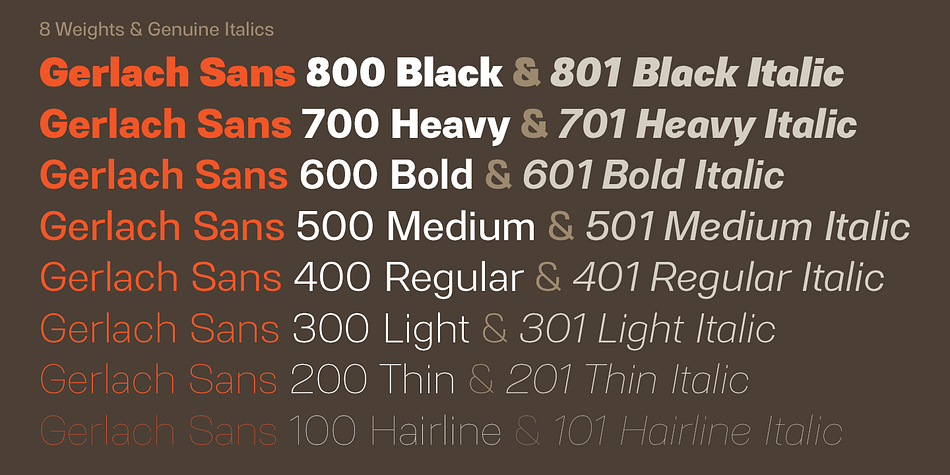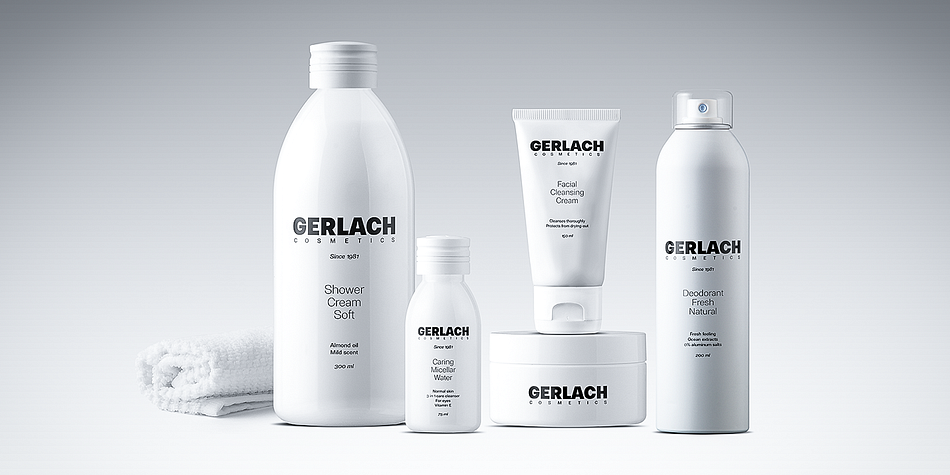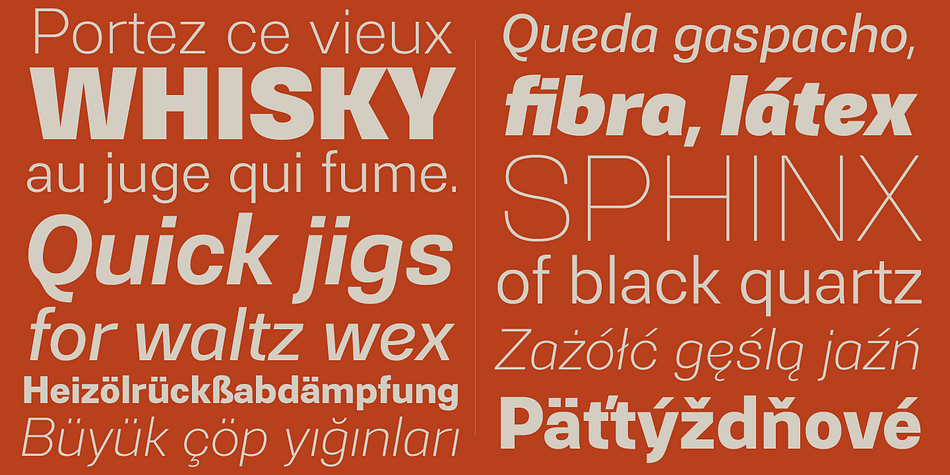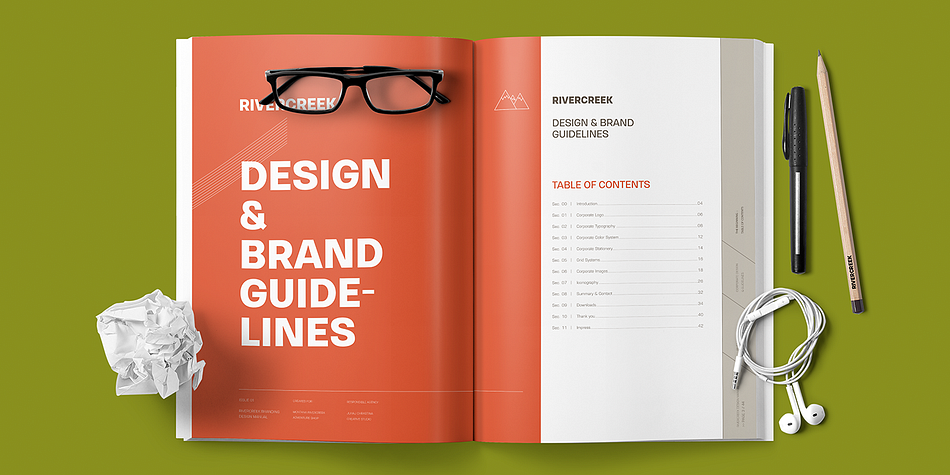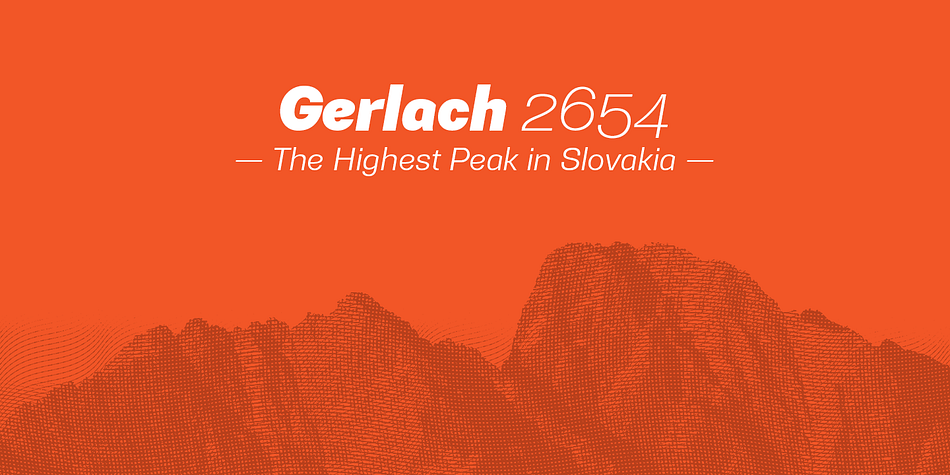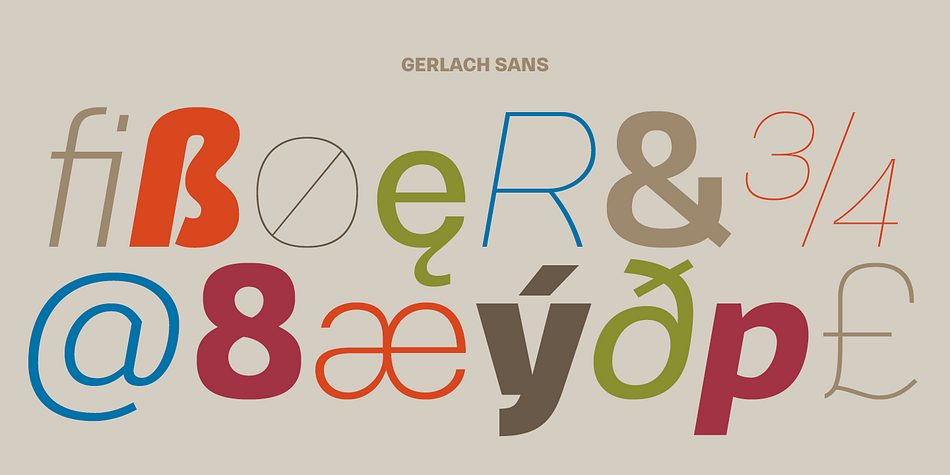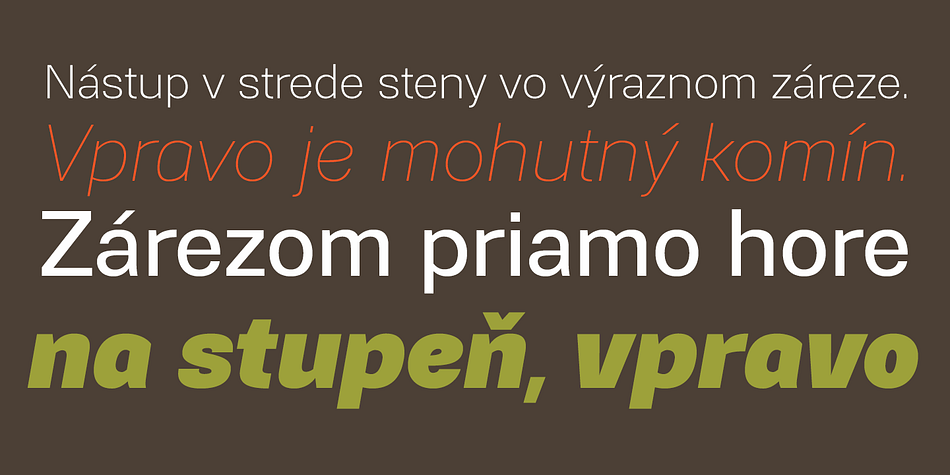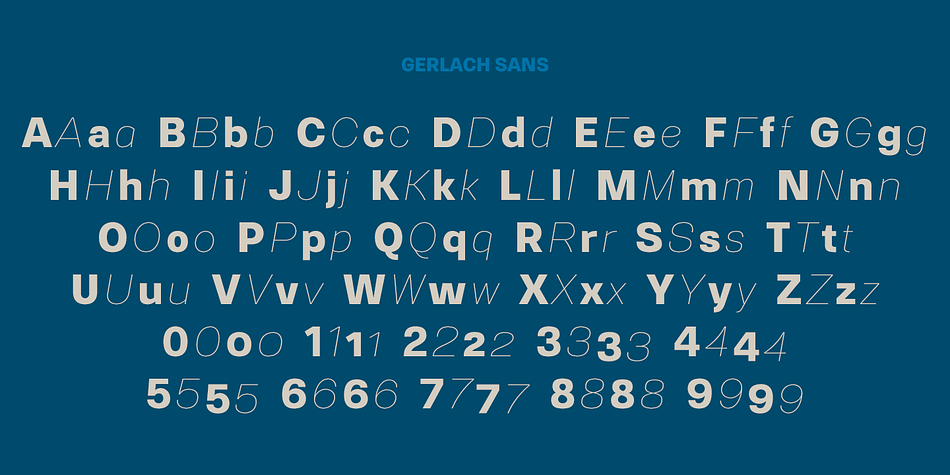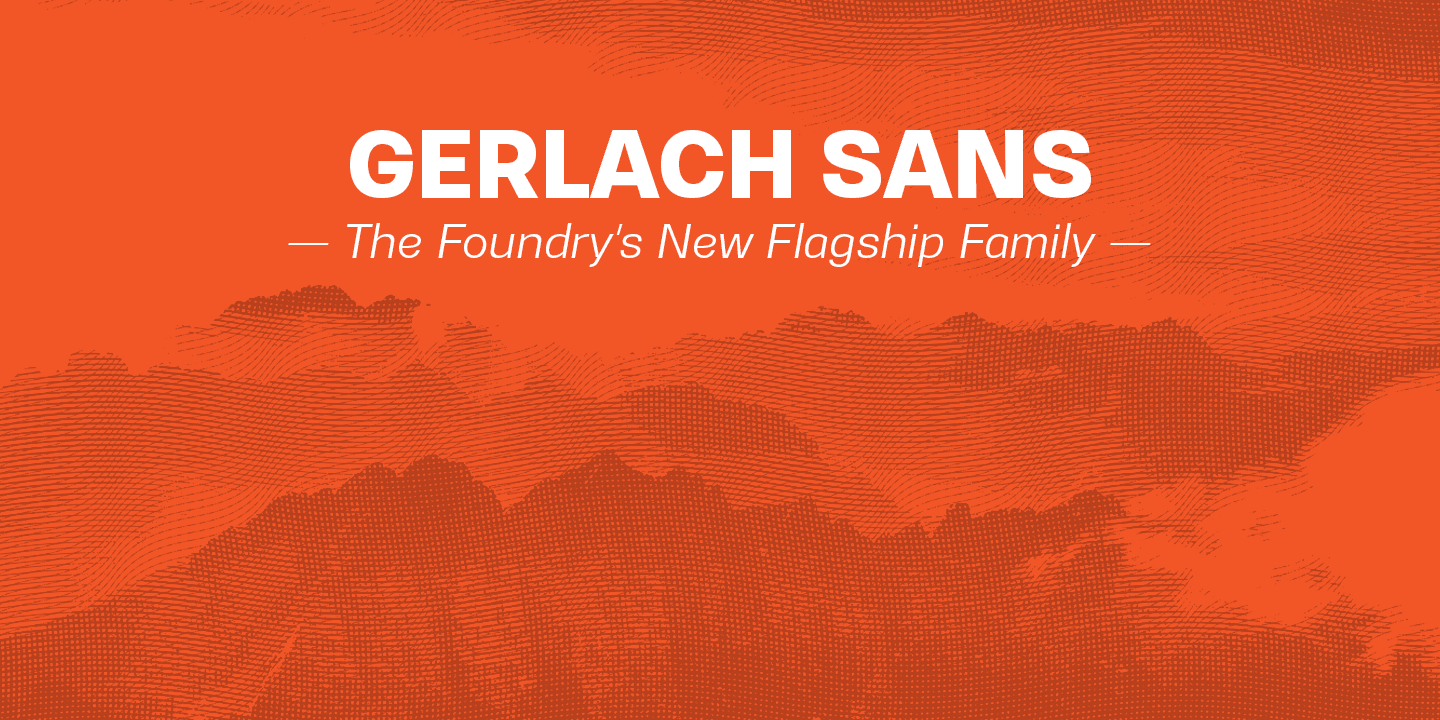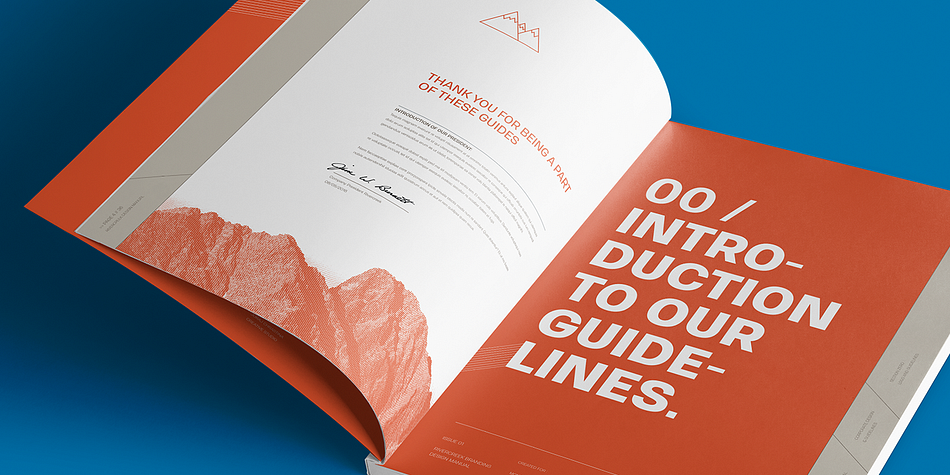
Designed by Juraj Chrastina, Gerlach Sans is a sans serif font family. This typeface has sixteen styles and was published by Juraj Chrastina.
As the foundry’s new flagship family, Gerlach Sans was named after the highest peak in Slovakia.
Its functional design is enhanced by a few subtle ingredients, adding life and giving words a more playful voice.
The family has eight weights ranging from delicate hairline to the super thick black. Each of them includes a genuine italic companion with variant shapes.
The large character set accessible through OpenType features provides the designer with a wealth of opportunities and supports a wide range of Latin-based languages. It is stuffed up with tabular and proportional figures, old-style and lining figures, fractions, superscripts and subscripts, ordinals, case-sensitive forms, circled numbers, arrows, icons and many more.
Combining legibility and usability of its grotesque style with cool elegance, Gerlach Sans provides a strong partner for your print and web project.